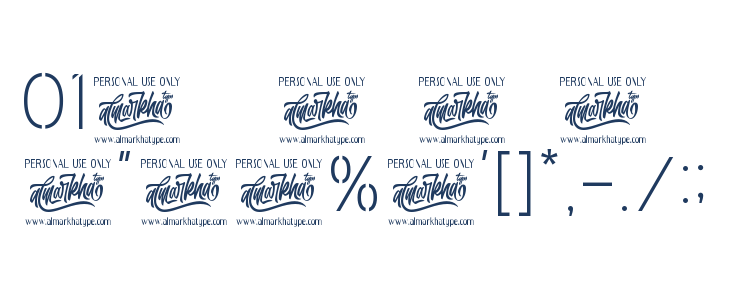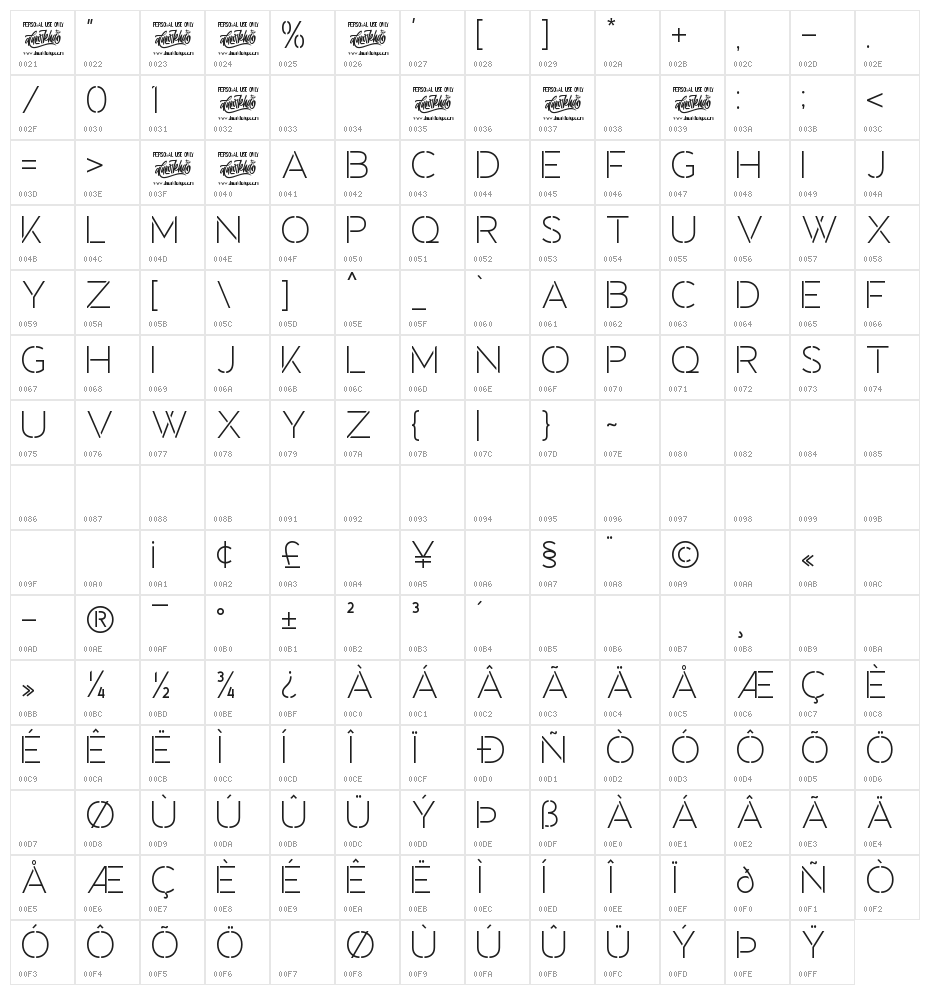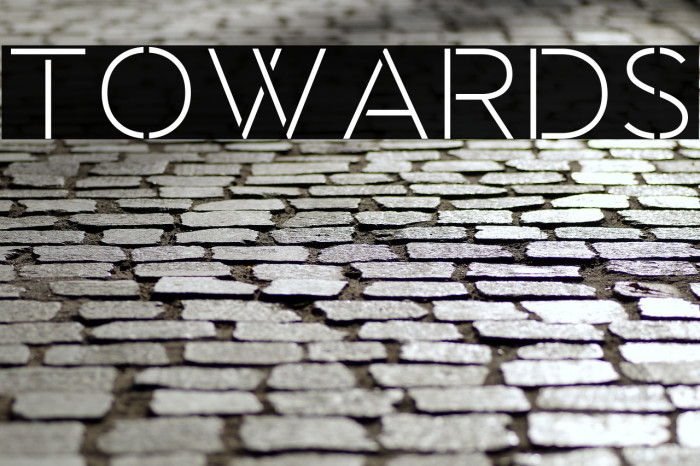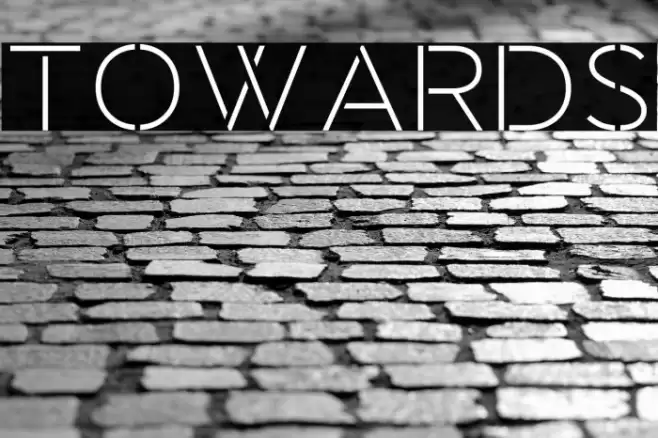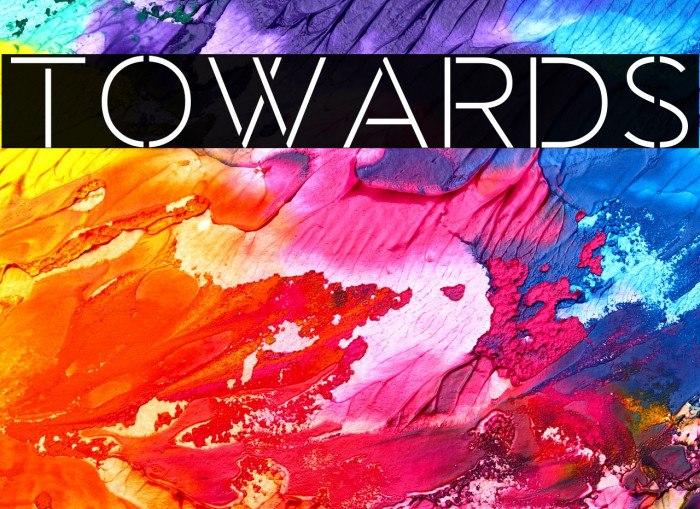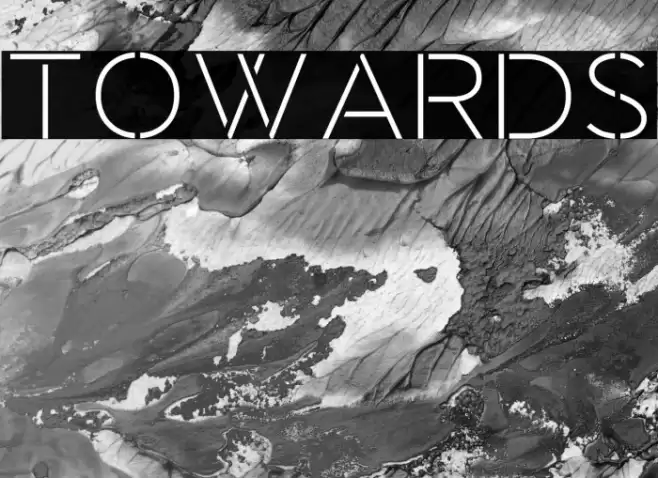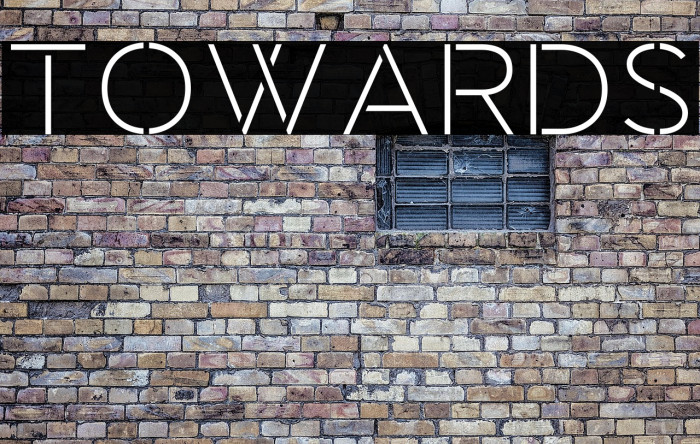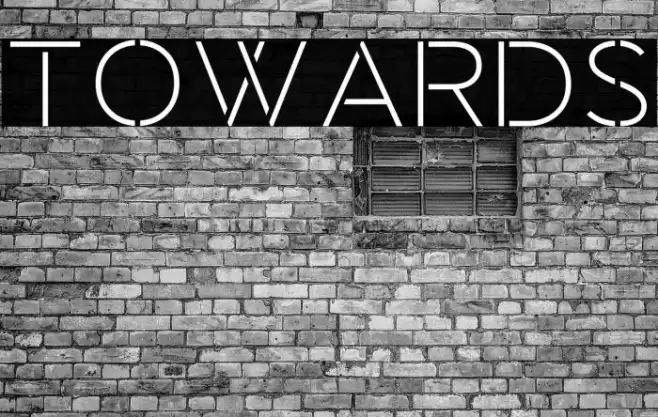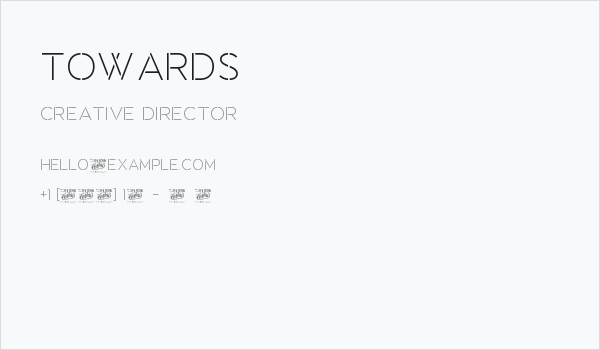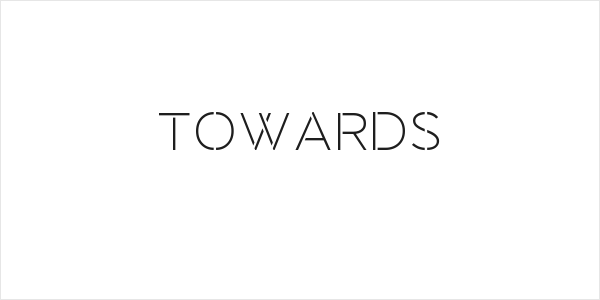
Towards Font
Towards Description
This font features a clean and modern sans-serif style with a geometric structure. The characters are uniform in width, providing a balanced and harmonious appearance. The uppercase letters are bold and assertive, while the lowercase letters maintain a consistent height, enhancing readability. The numerals are clear and distinct, matching the overall aesthetic of the alphabet. Special characters are minimalistic, aligning with the font's sleek design. This font is ideal for projects that require a contemporary and professional look.